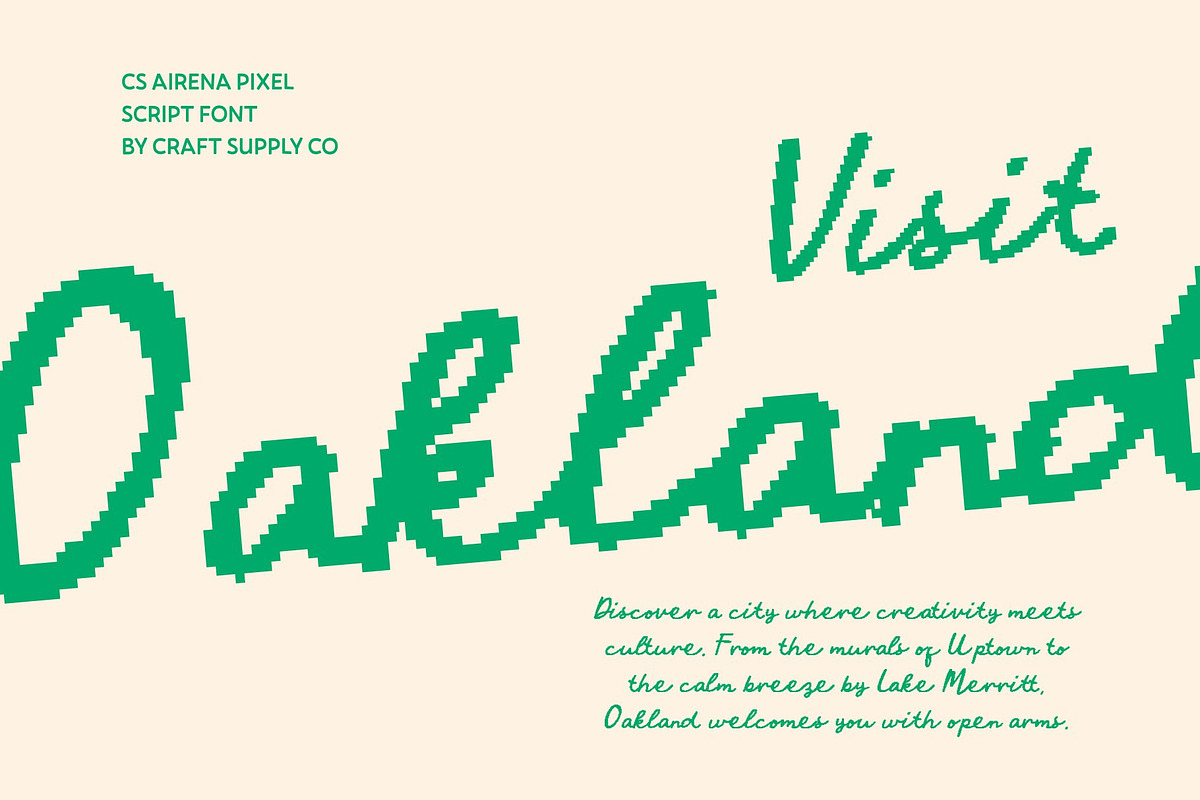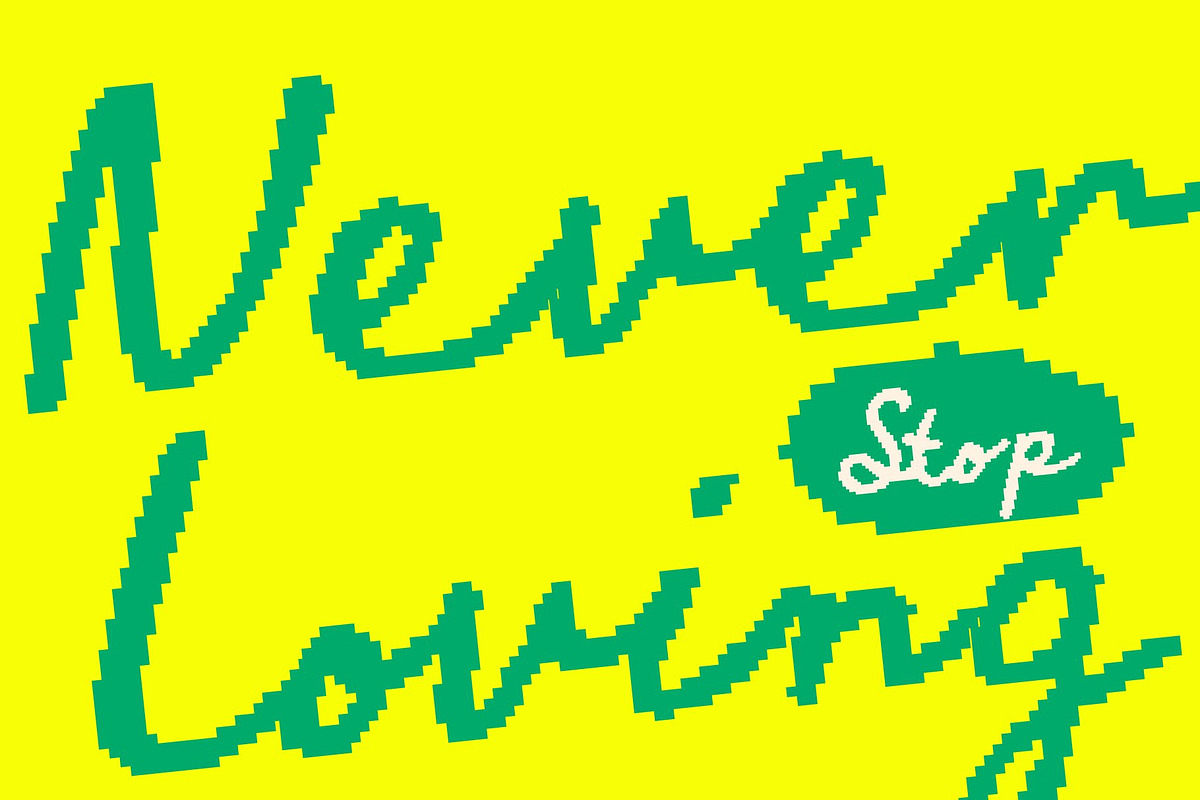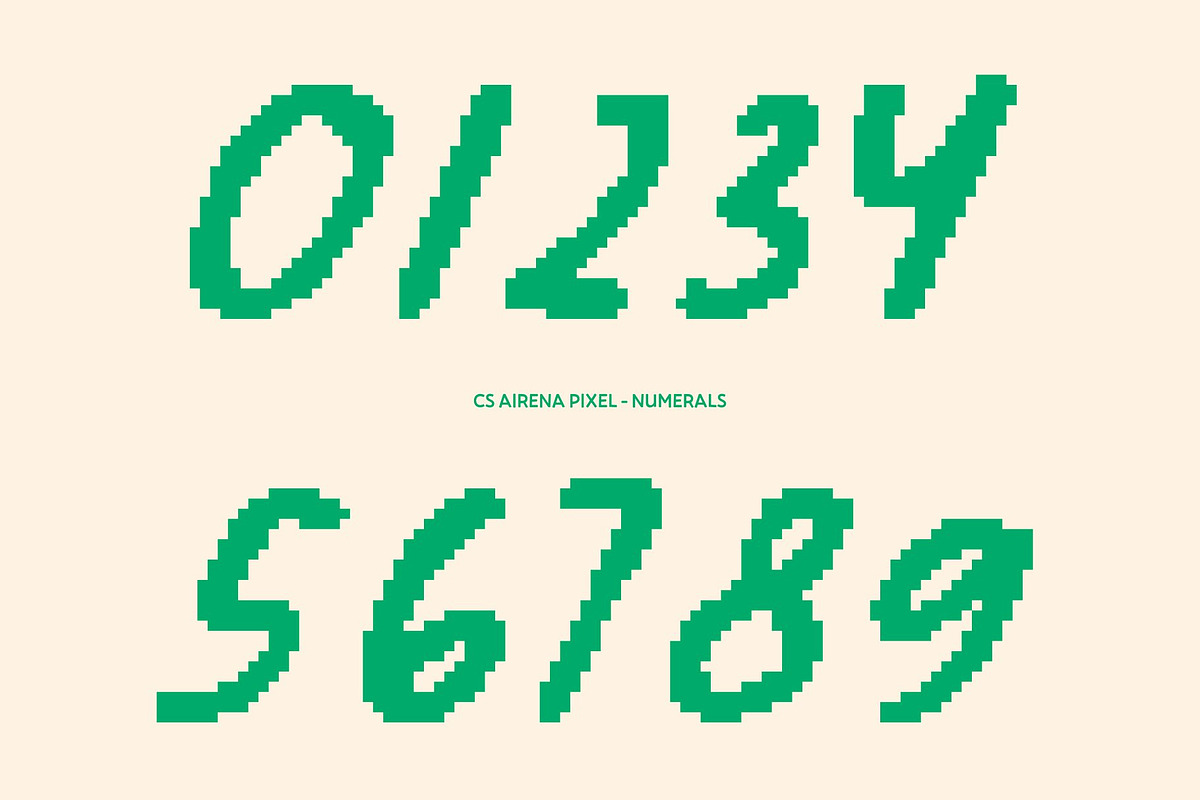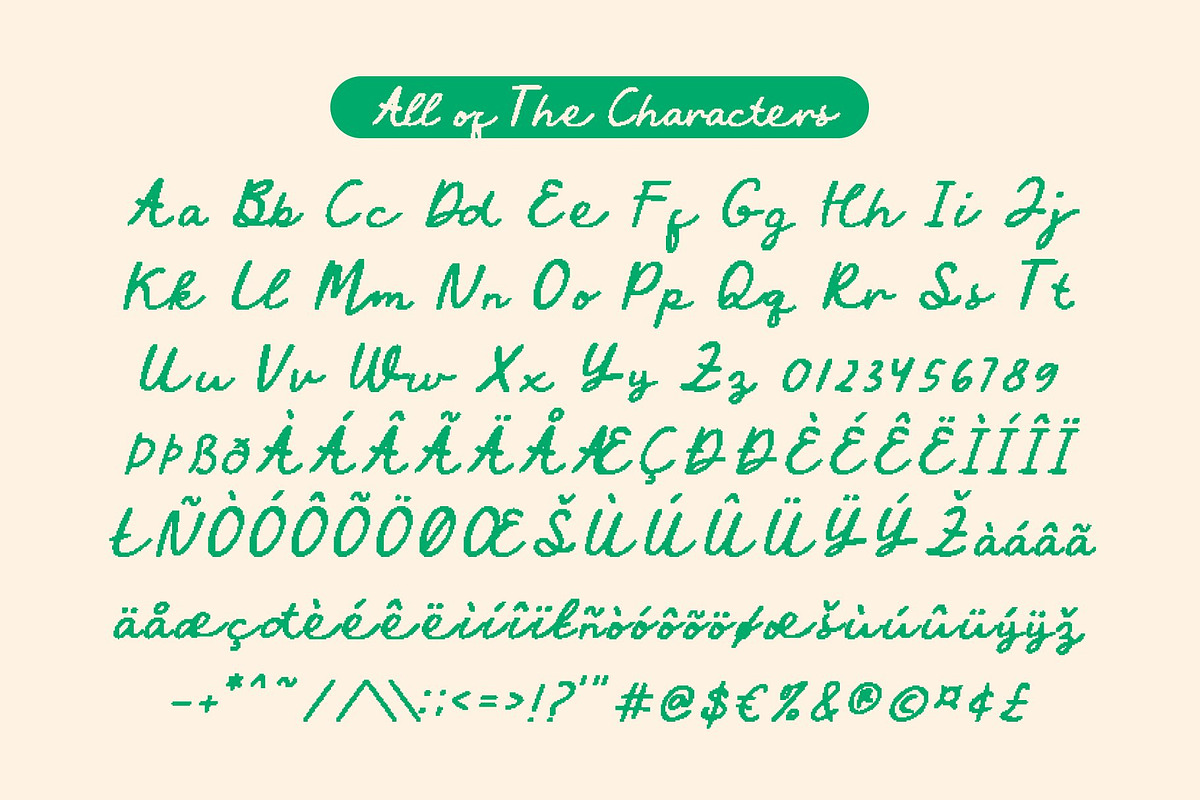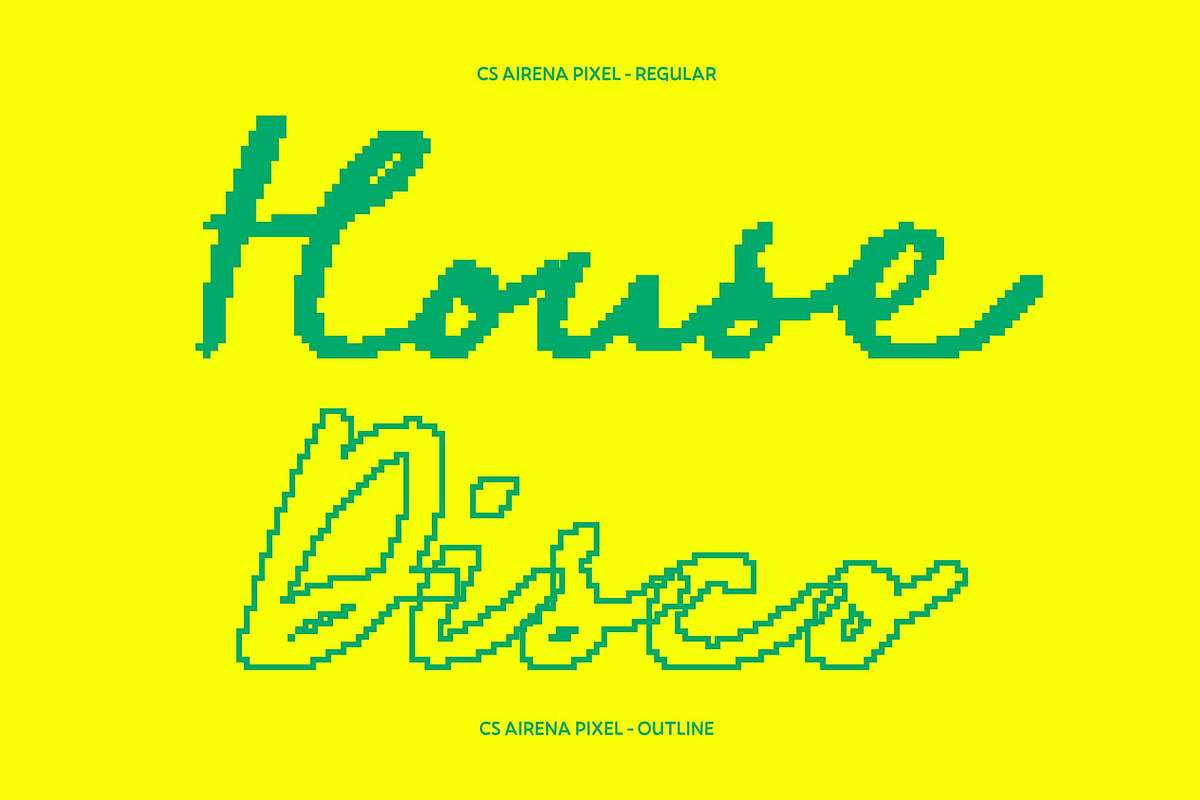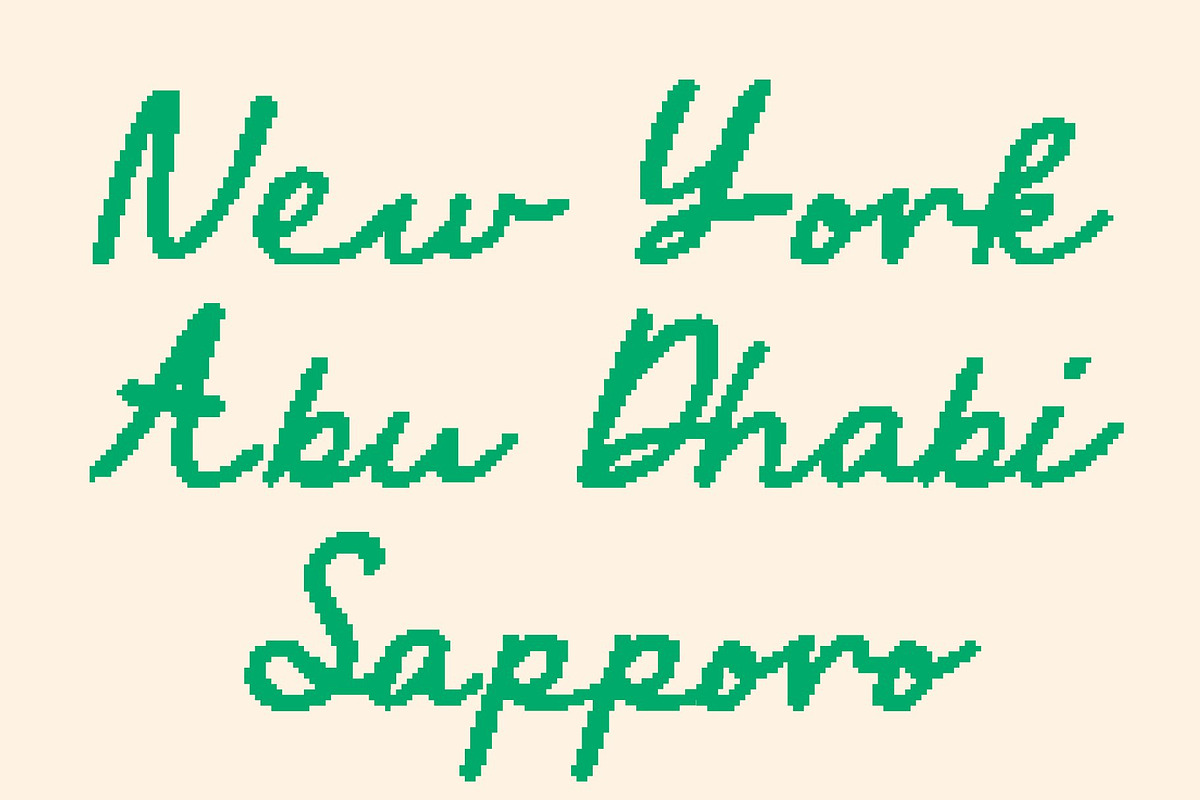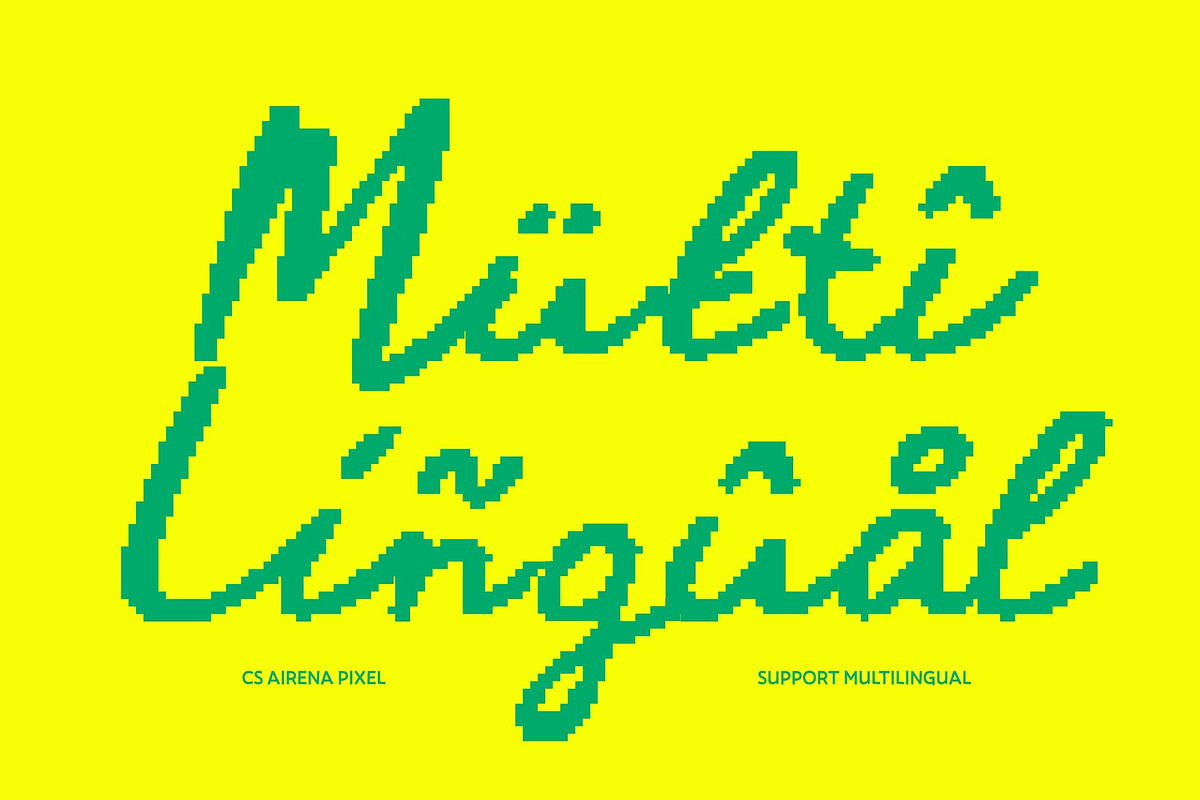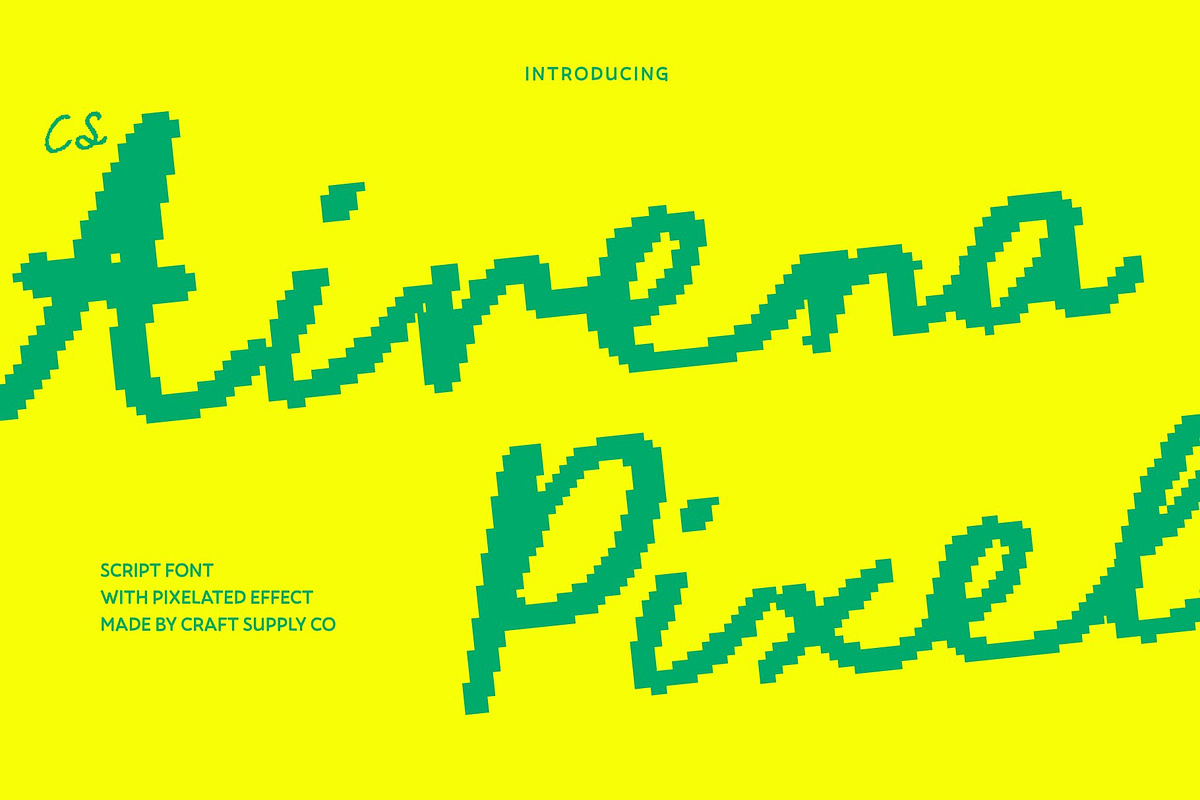
CS Airena Pixel
CS Airena Pixel – Romantic Script Font with Mediterranean Digital Elegance
Graceful Script Strokes with Pixel-Refined Beauty This is a romantic script font that blends timeless handwritten elegance with subtle pixel detailing. Its flowing strokes and smooth curves maintain the charm of classic script lettering, while the pixel structure introduces a refined digital character. This combination creates a font that feels warm, expressive, and luxurious, yet uniquely modern with a gentle old-digital nuance.
Mediterranean Flair with a Retro-Modern Pixel Touch Inspired by Mediterranean handwriting, this font carries a sense of coastal romance and effortless sophistication. The graceful loops and fluid connections are enhanced by pixel accents, giving the font a distinctive look that feels both nostalgic and contemporary. This balance makes it ideal for designs that want emotional elegance with a modern digital twist.
Perfect for Branding and Luxury Packaging This font shines in upscale branding and premium packaging. Its romantic script style communicates exclusivity and refinement, while the pixel detail adds uniqueness and memorability. Ideal for fashion labels, beauty products, artisan goods, and boutique branding, this font elevates logos, taglines, and labels with stylish digital charm.
Ideal for Weddings and Elegant Creative Projects With its soft romance and expressive letterforms, this font is perfect for wedding invitations, event stationery, and elegant print designs. It brings intimacy, warmth, and sophistication to invitations, greeting cards, and decorative layouts making every design feel personal, graceful, and beautifully timeless.
CS Airena Pixel Regular CS Airena Pixel Outline Features :